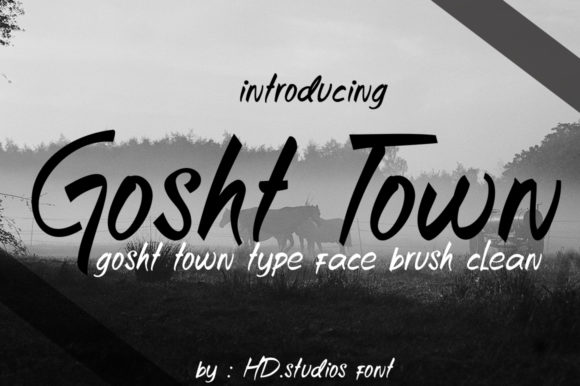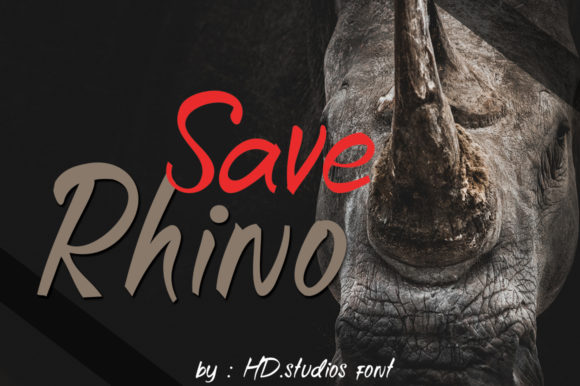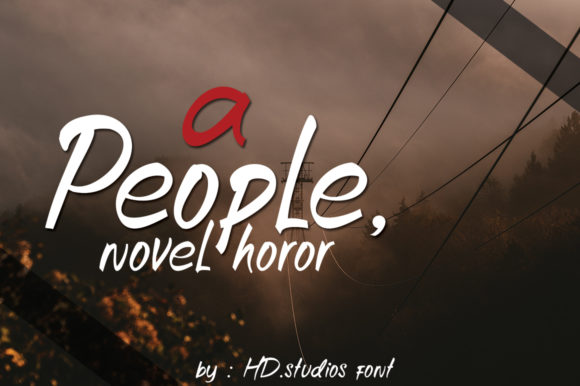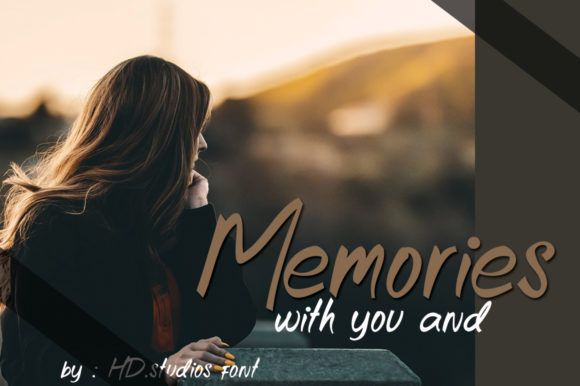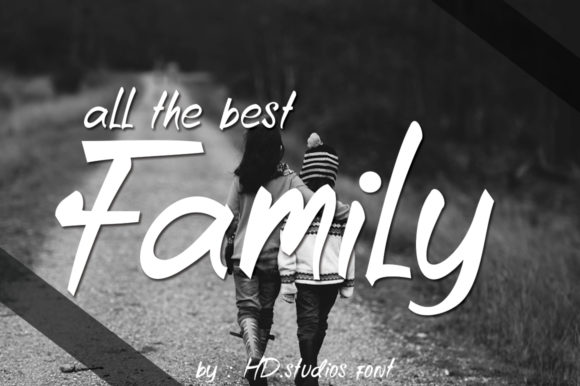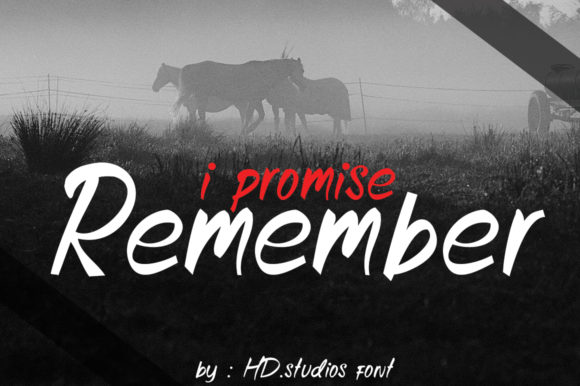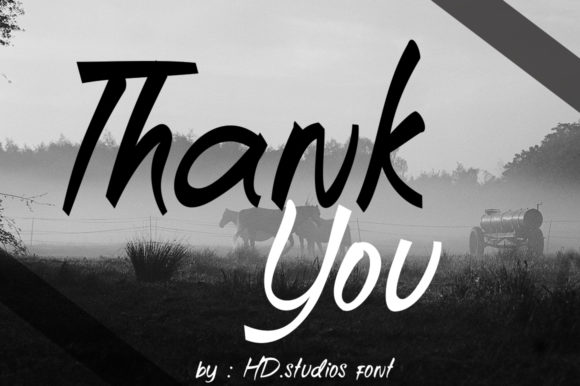
Gosht Town Font
About Gosht Town Font
Don’t get lost in the Gosht Town! This eye-catching font is ideal for a wide variety of projects, from book covers to social media posts. Get inspired by its contemporary coolness!